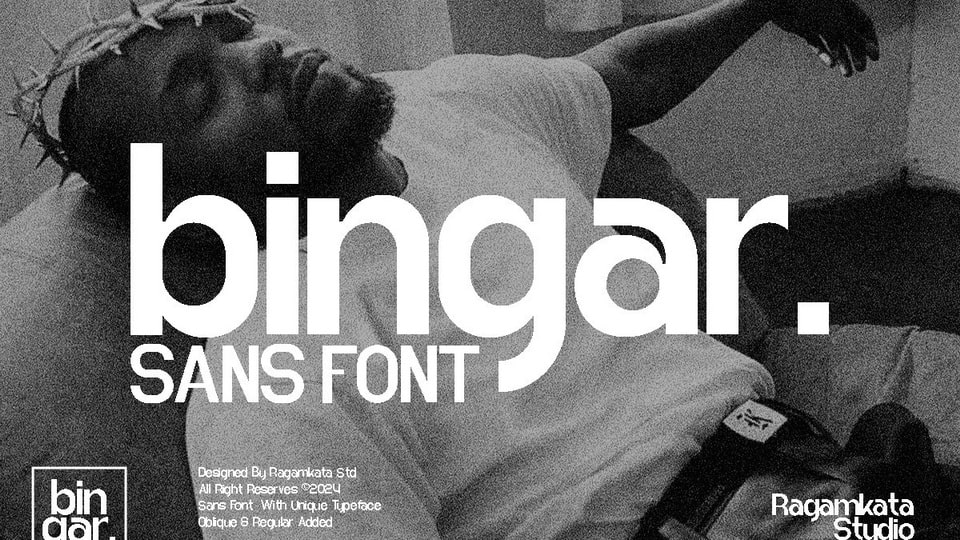
Download Bingar font, a modern sans serif display typeface that has smooth curves and a visual style and can embodies charm and elegance in every lettering.